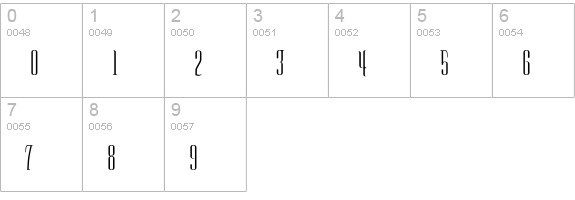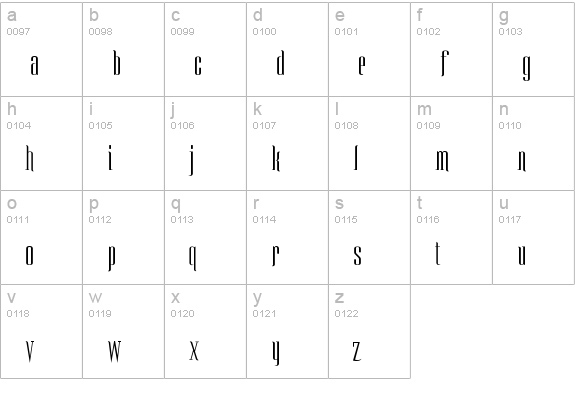
MalaiseTall Font Details
Introducing MalaiseTall, a stunning and captivating font that will elevate your designs to new heights. With its sleek and modern aesthetic, MalaiseTall is the perfect choice for any project that requires a touch of elegance and sophistication. This font boasts tall, slender letterforms that exude a sense of grace and poise. Each character is meticulously crafted to ensure flawless legibility, making it ideal for both headlines and body text. Whether you're designing a logo, creating a poster, or crafting a website, MalaiseTall's versatility will effortlessly complement your vision. But what truly sets MalaiseTall apart is its availability as a free font. That's right, you read it correctly - this exceptional typeface can be freely downloaded at FontsMarket.com. Now you can harness the power of this exquisite font without any cost, allowing you to unleash your creativity without limitations. With MalaiseTall, you'll not only be able to create visually stunning designs, but you'll also be making a smart and economical choice. Don't miss out on this fantastic opportunity to add a touch of elegance to your projects without breaking the bank. Download MalaiseTall today from FontsMarket.com and let your designs speak volumes with this exceptional and freely available font.